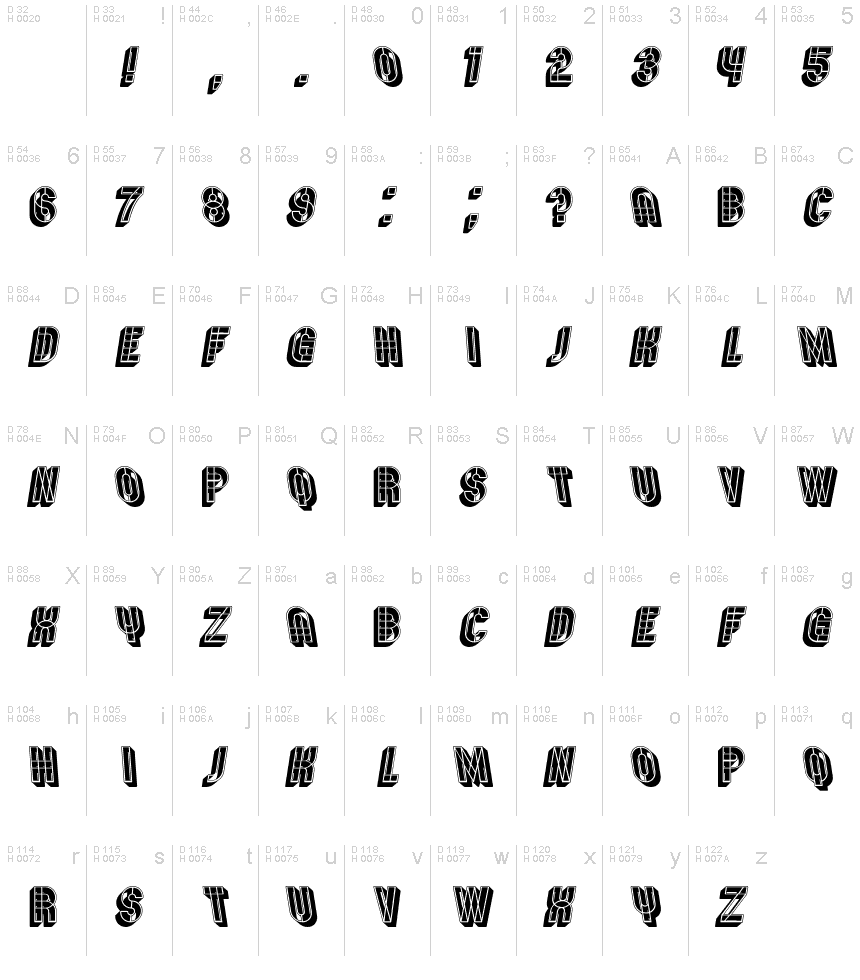
Bauhaus Abstract Regular
Bauhaus Abstract is a daring display font designed by the talented Vladimir Nikolic. Its 3D style adds depth and dimension to any project, making it perfect for eye-catching headlines, logos, and posters. Bauhaus Abstract’s bold weight commands attention, while its sleek design exudes sophistication and modernity. This font is suitable for a variety of projects including fashion editorials, tech websites, and music festival branding. With its unique aesthetic and impeccable design, Bauhaus Abstract is sure to elevate your next project to new heights.
"Bauhaus" comes in Regular and Abstract variant!